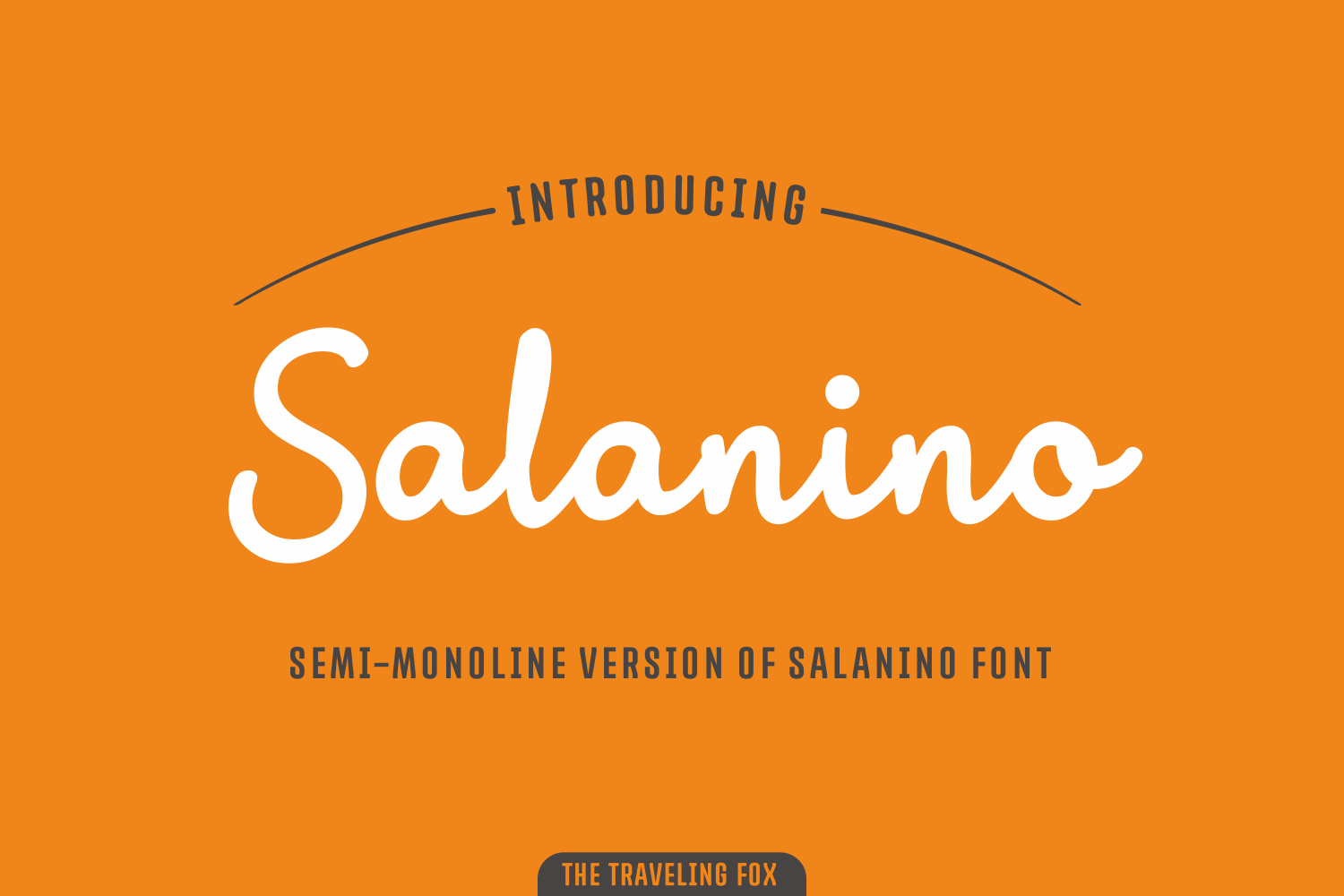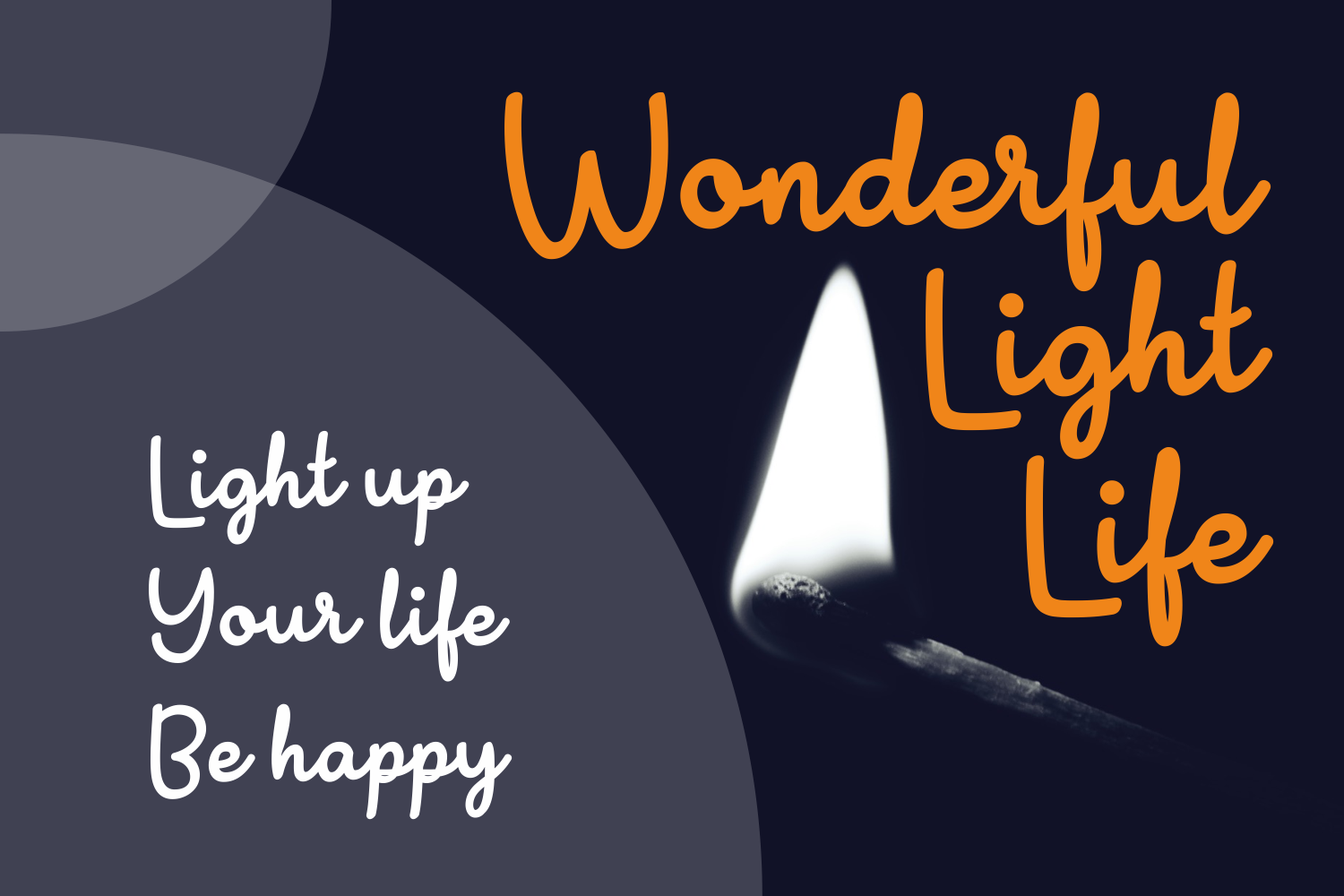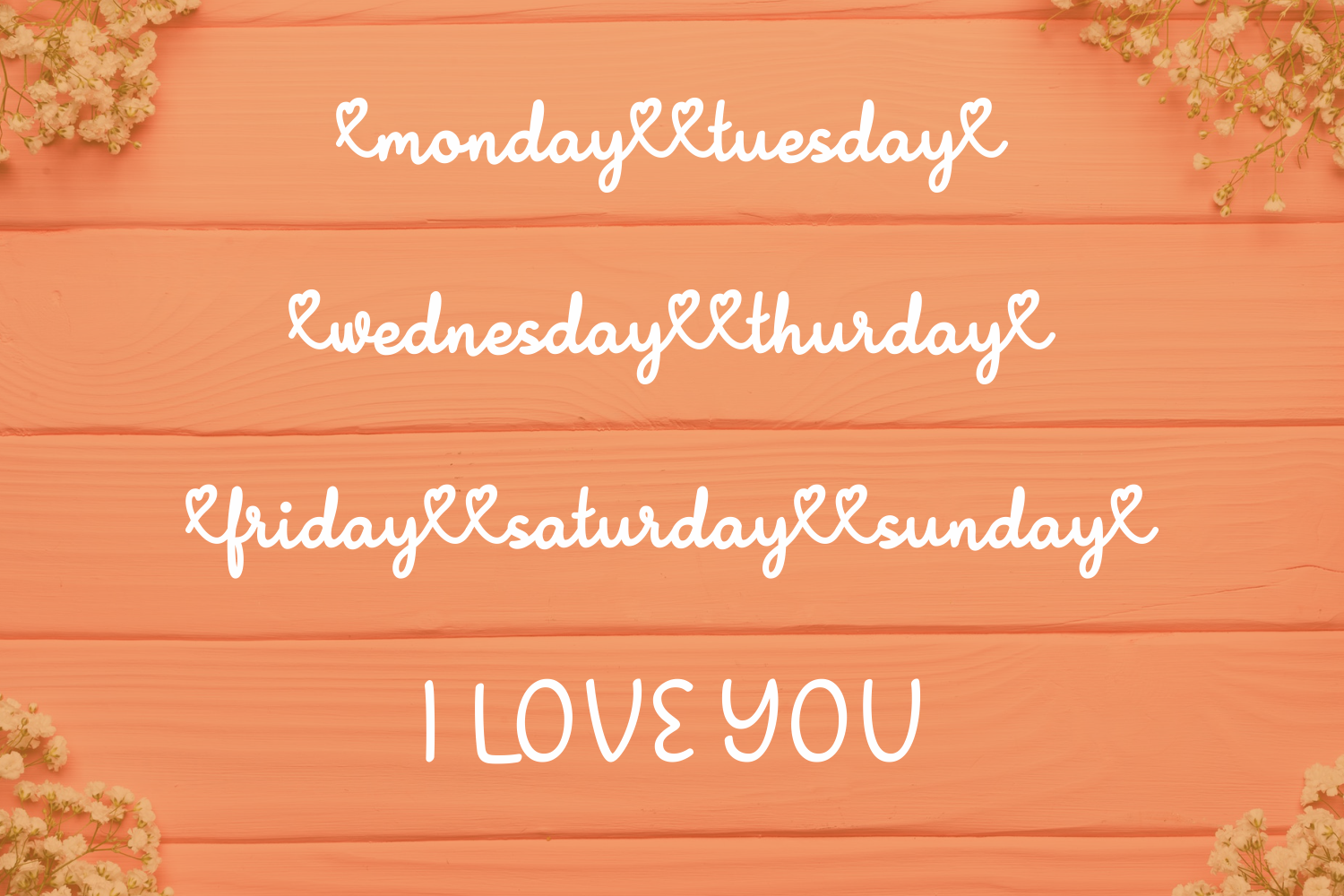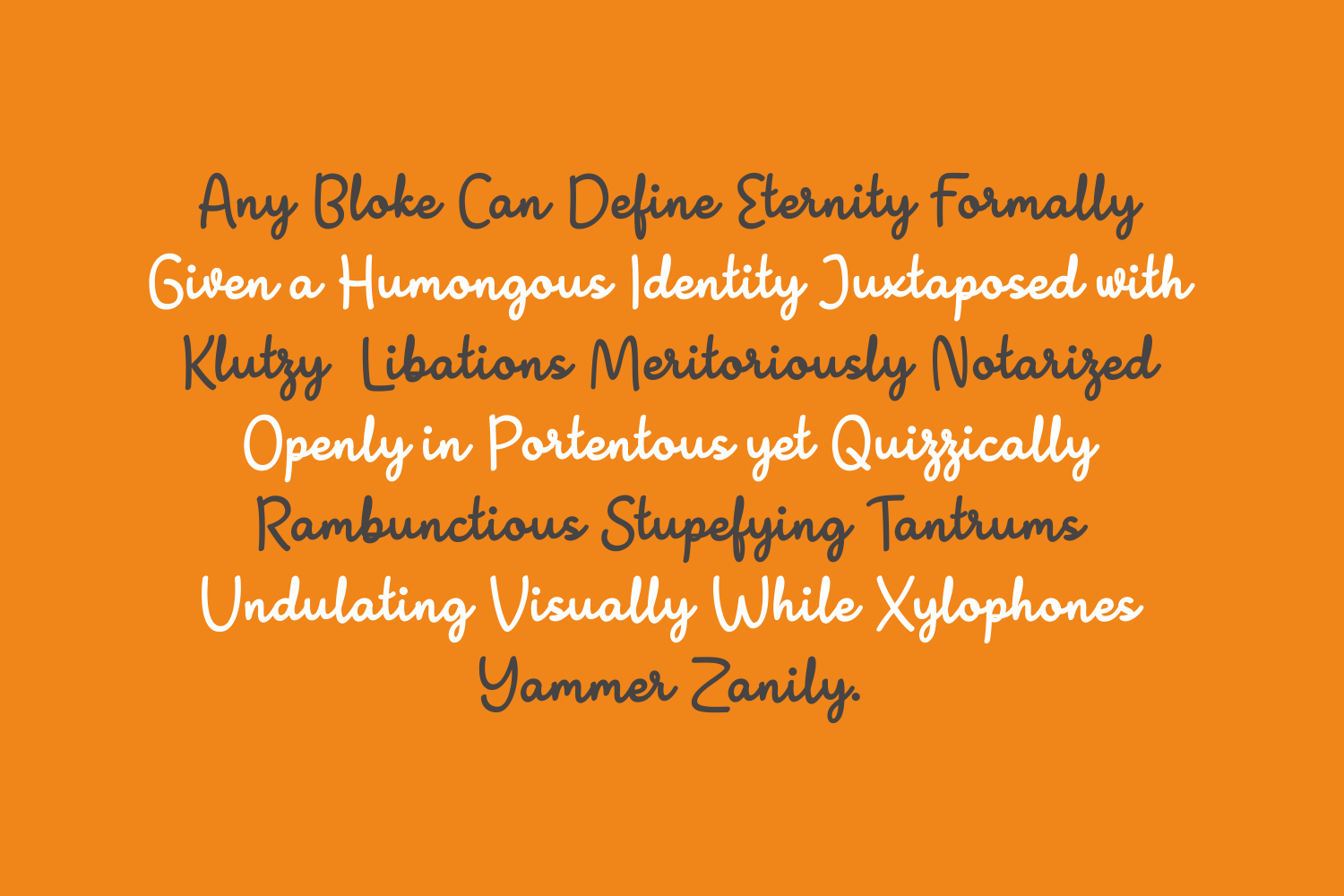
Salanino Mono Font
About Salanino Mono Font
Salanino Mono is a smooth, handwritten typeface that features playful & bold letters.
The smooth-flowing letters will add a natural touch to your designs.